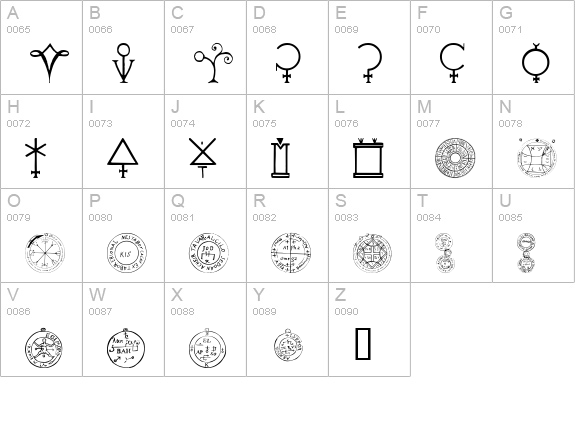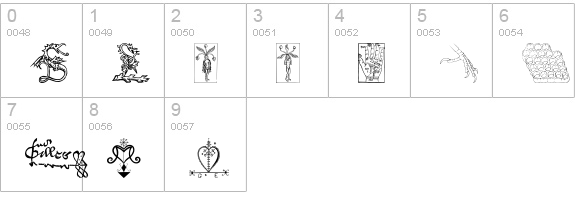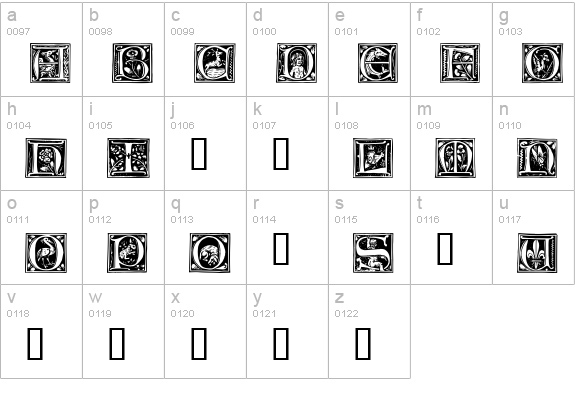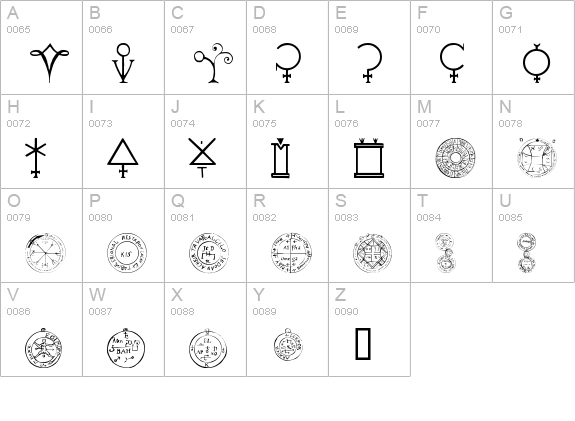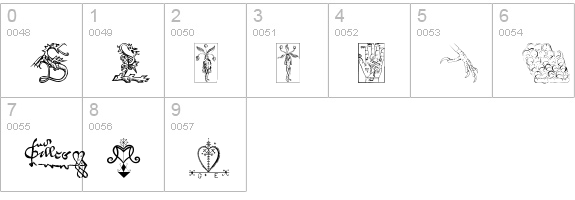
Introducing Tome Pi HPLHS font, a mesmerizing and captivating typeface that will transport you into the eerie and mysterious world of H.P. Lovecraft. This font is the perfect embodiment of the Lovecraftian aesthetic, with its intricate and otherworldly design. Tome Pi HPLHS font is not only visually stunning, but it also holds a deep connection to Lovecraft's literary universe. Each letter is meticulously crafted to evoke a sense of ancient and forbidden knowledge, echoing the arcane symbols found within the pages of his works. The angular and intricate strokes create an atmosphere of enigma and darkness, making this font truly unique. What makes Tome Pi HPLHS font even more exceptional is that it is freely available to download at FontsMarket.com. This means that anyone who is captivated by the allure of Lovecraft's writing can now bring a piece of that world into their own creative endeavors. Whether you are designing book covers, posters, or simply want to add an otherworldly touch to your personal projects, this font is the perfect choice. With its wide range of characters, including uppercase, lowercase, numbers, and punctuation, Tome Pi HPLHS font allows you to fully immerse yourself in the Lovecraftian atmosphere. Each letter is carefully balanced, ensuring legibility without compromising on the font's distinct style. So, if you are looking to add a touch of cosmic horror to your designs, look no further than Tome Pi HPLHS font. Download it for free at FontsMarket.com and let your imagination run wild as you delve into the depths of Lovecraft's literary universe. Embark on a typographic journey like no other and let the secrets of Tome Pi HPLHS font unravel before your eyes.